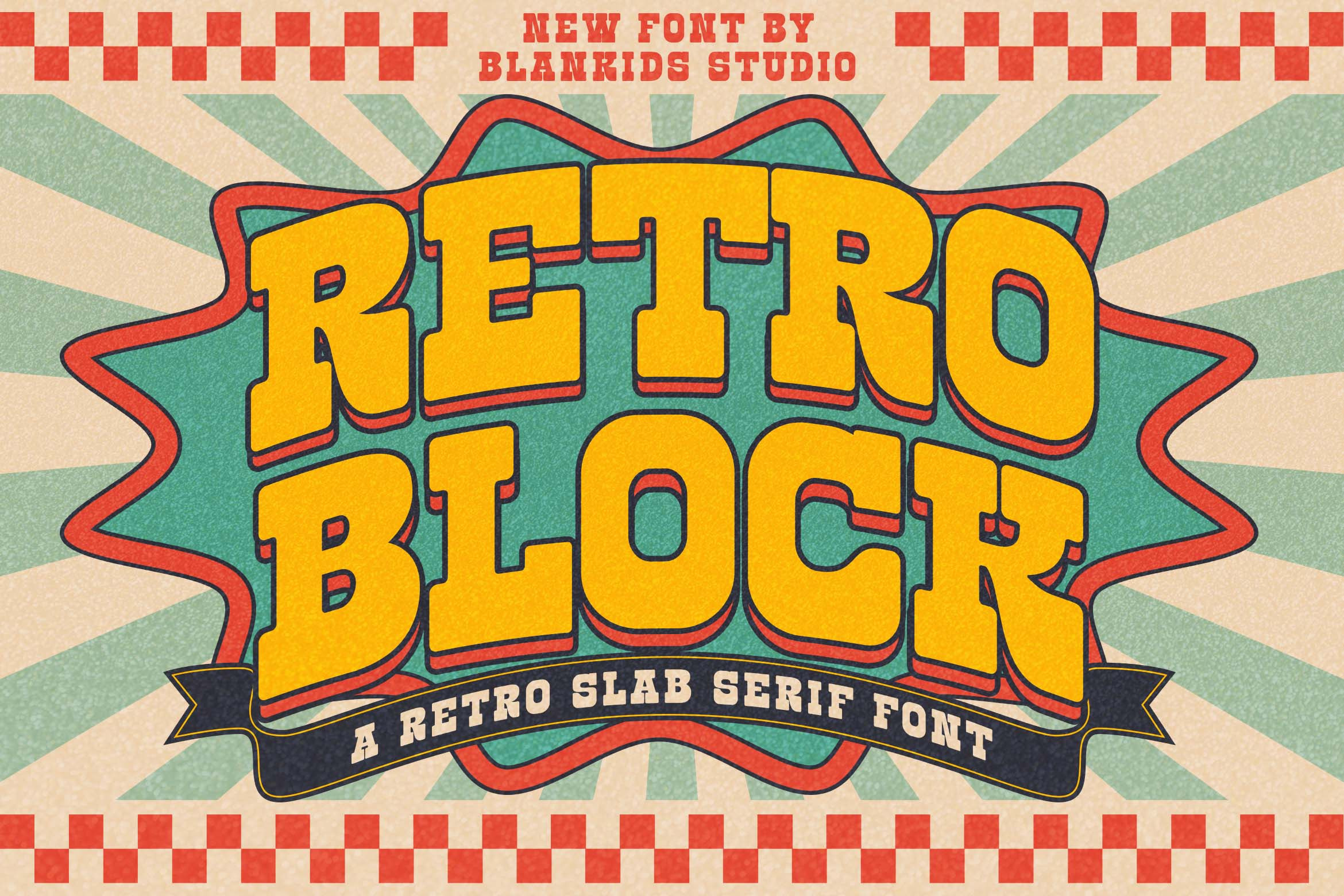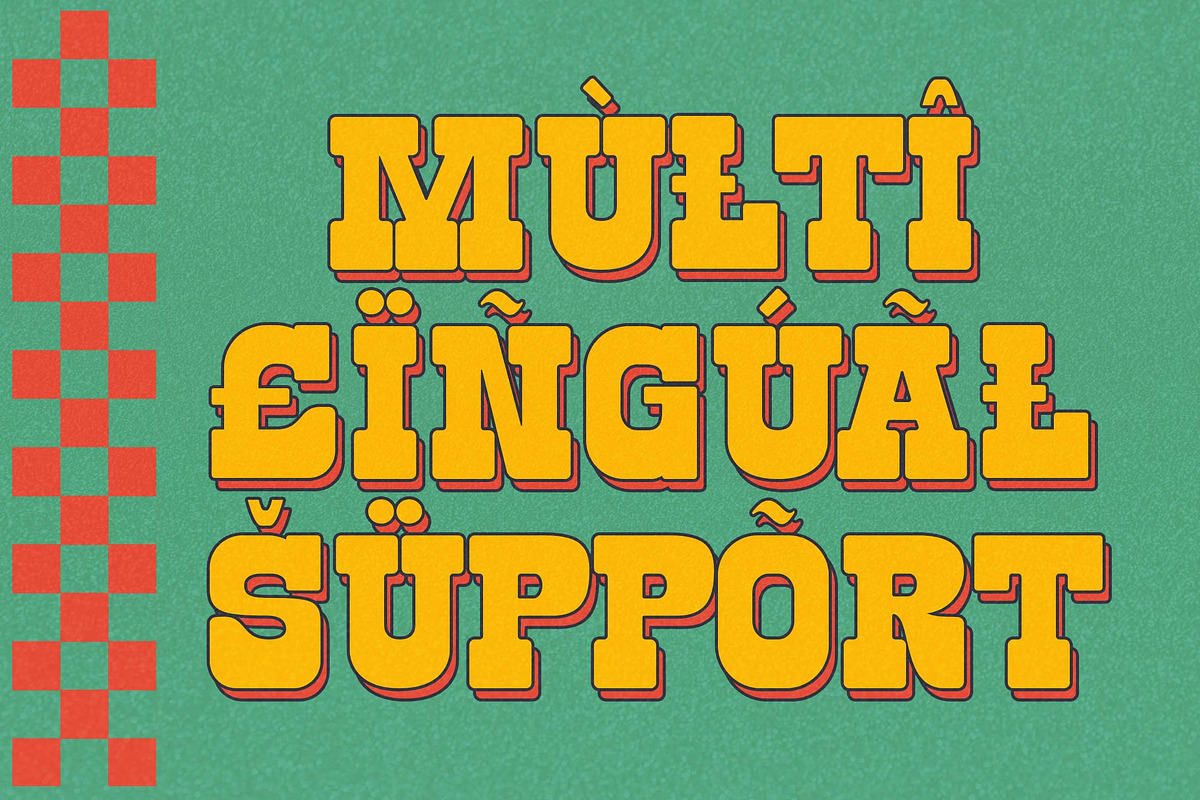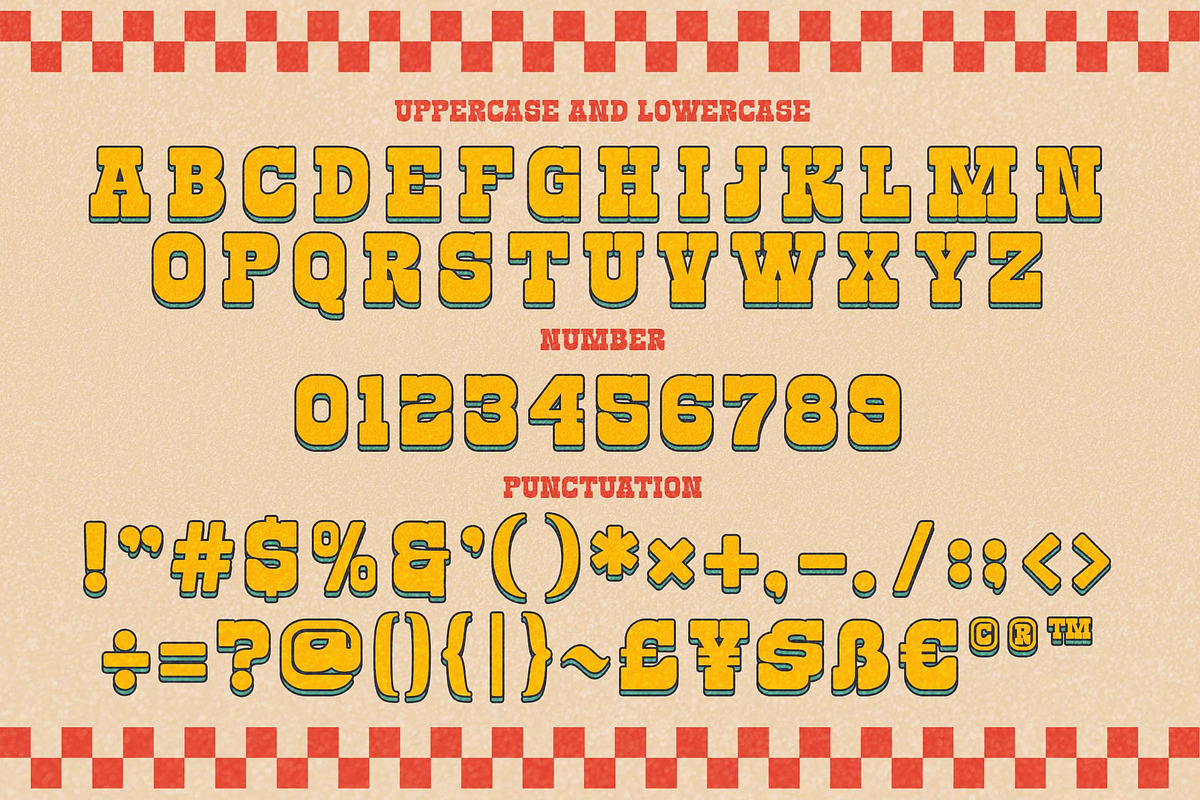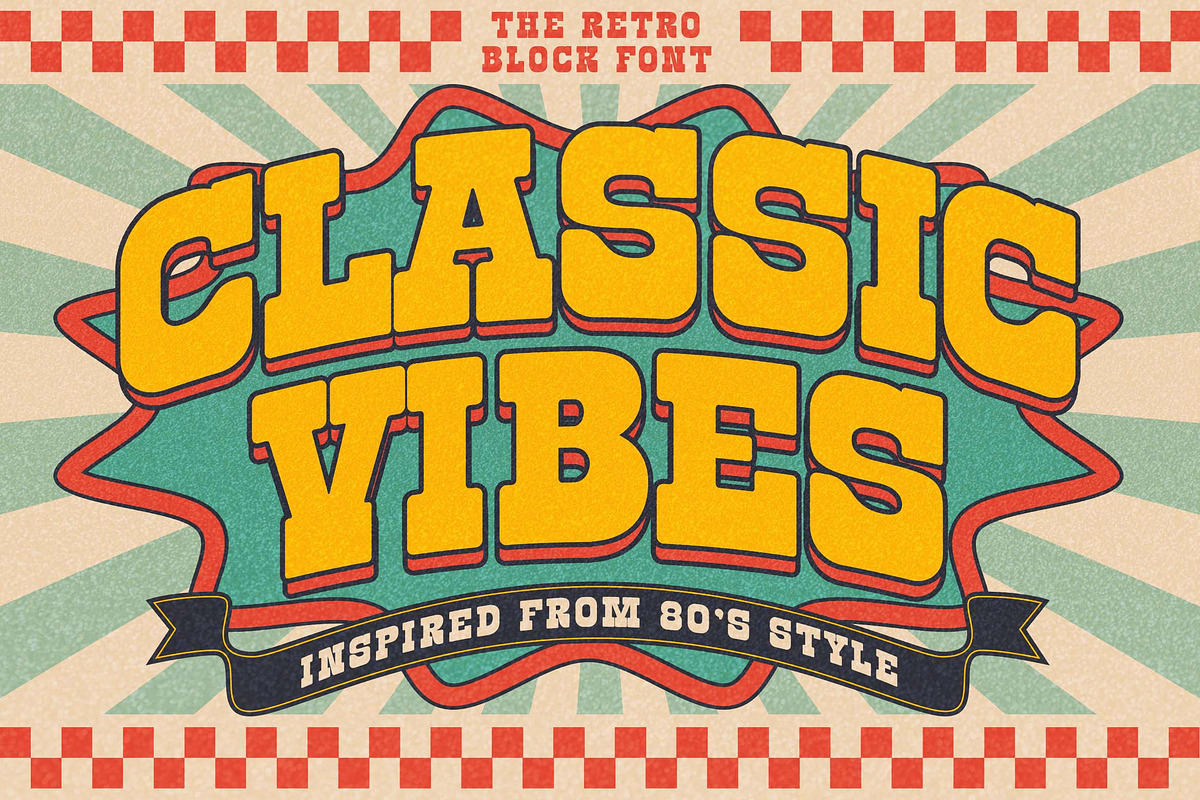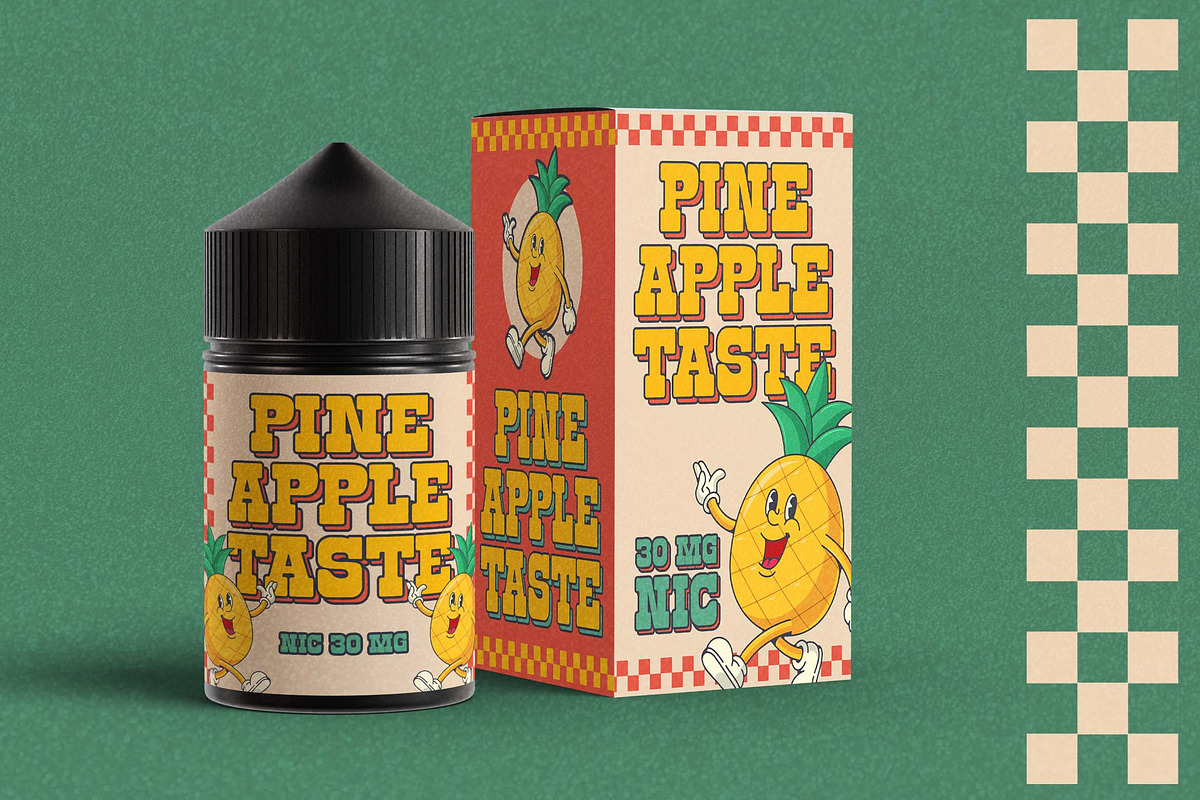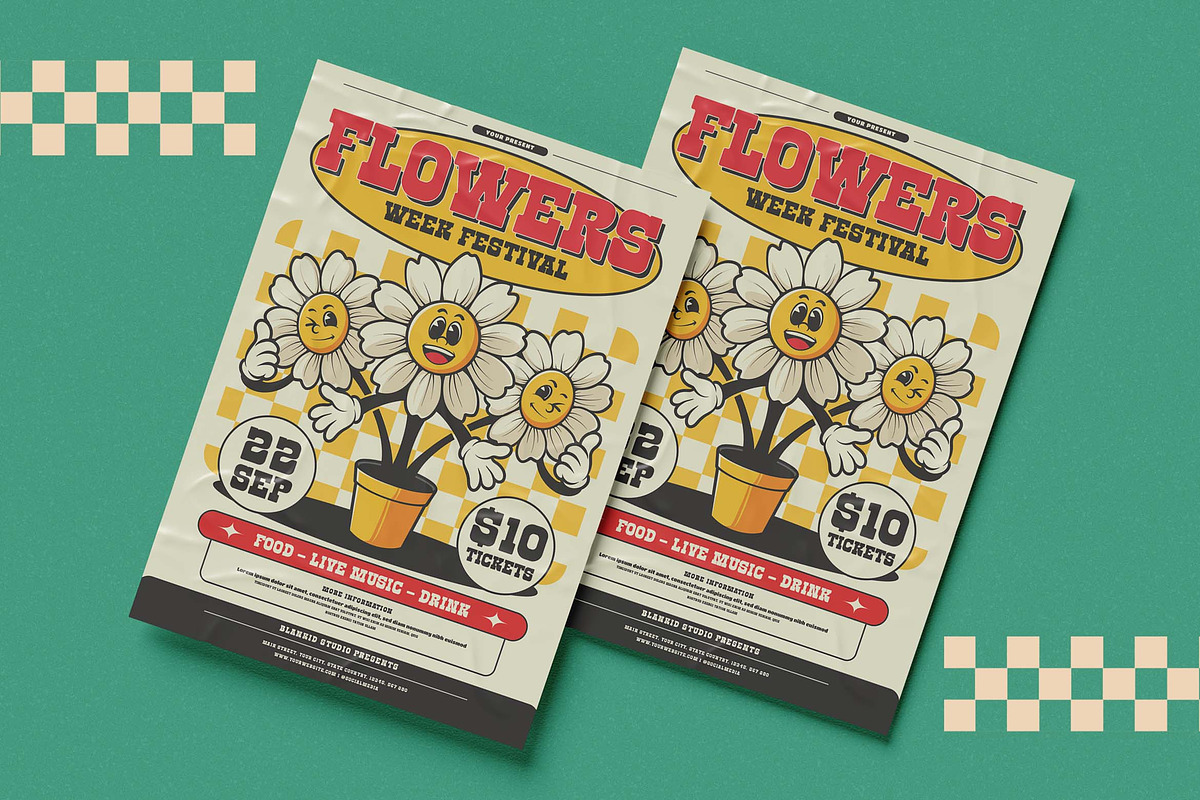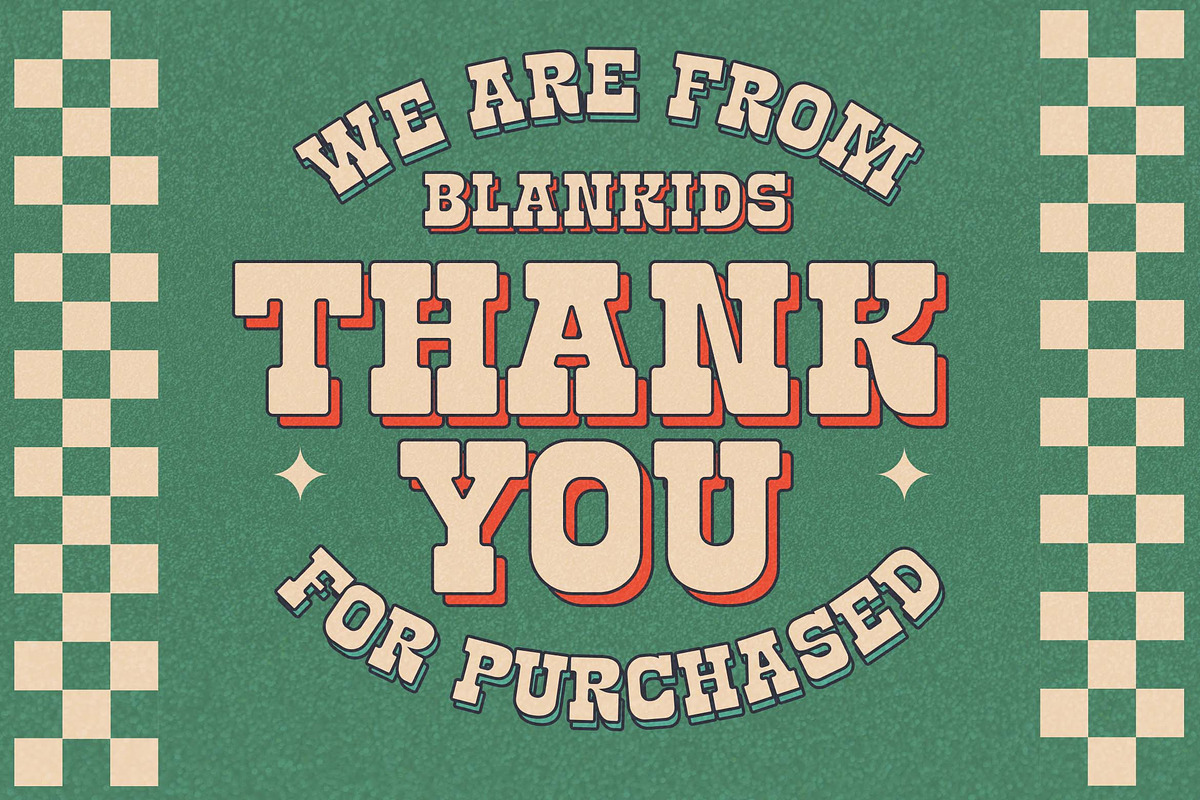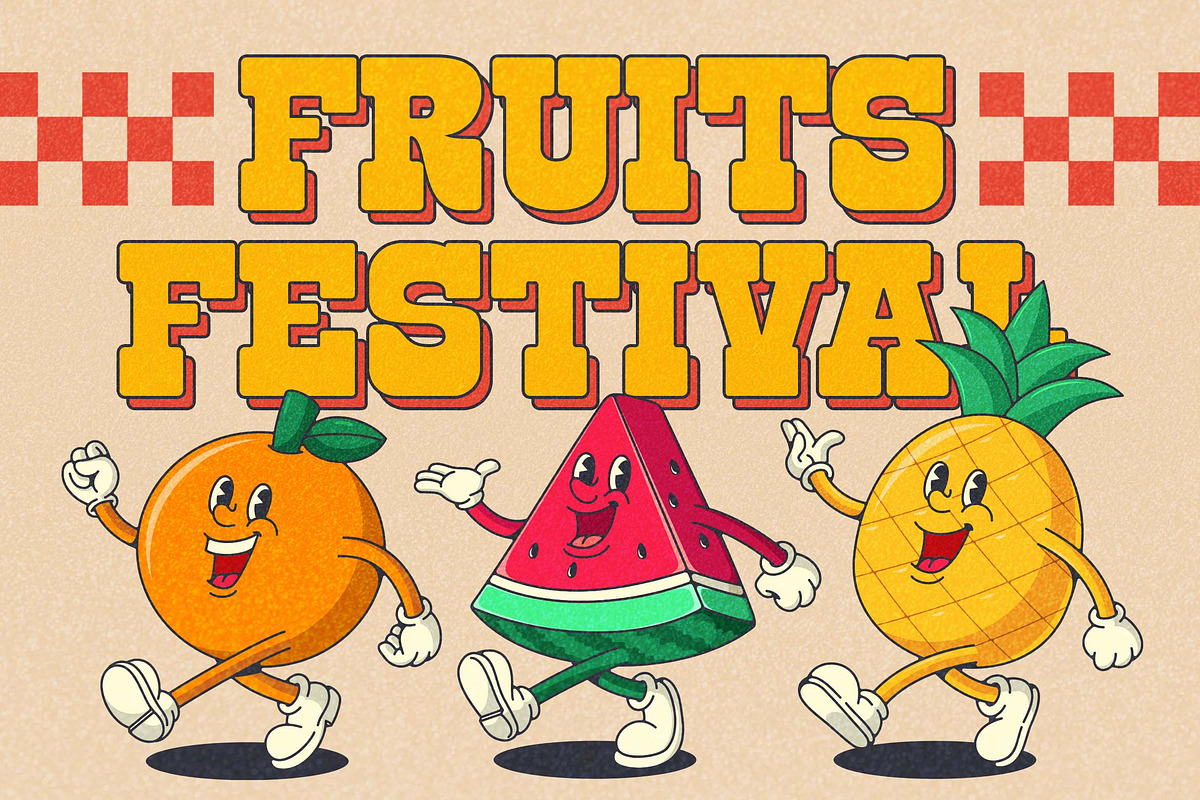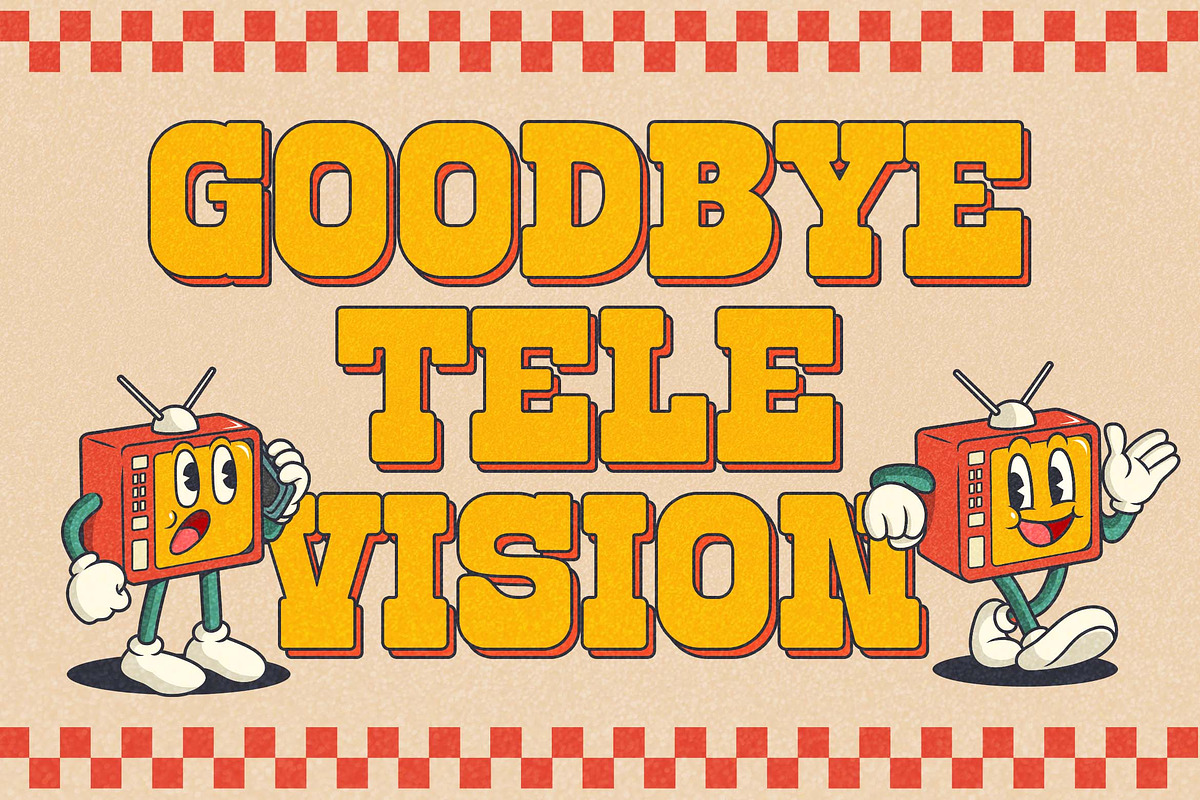
Retro Block a Retro Slab Serif Font
Hello, awesome people! This time, we have a new font called Retro Block a Retro Slab Serif Font by Blankids Studio.
Retro Block a Retro Slab Serif Font is made for any professional project branding, such as logotype, watermarks, poster, branding, promotions, product packaging, etc. Every letter has a playful retro style design. This font comes Otf. and Ttf.
Retro Block font includes a full set of retro uppercase and lowercase letters, numerals and punctuation. This font has a retro style. See the previews above to get some inspiration on how to use them. Happy designing!